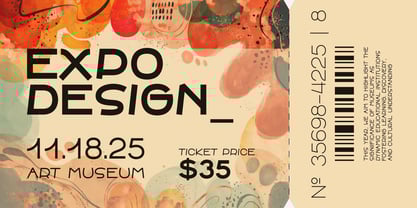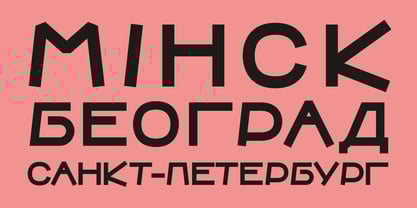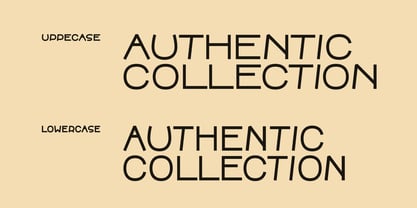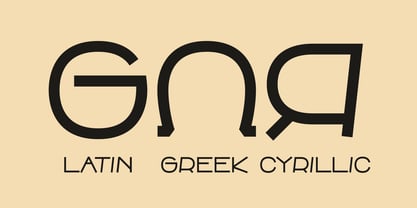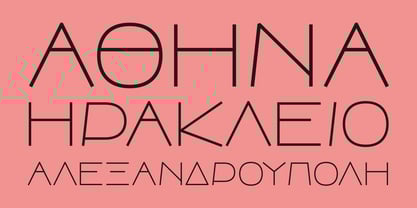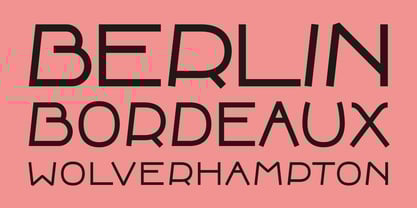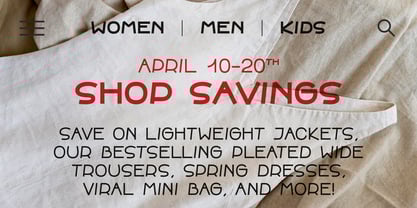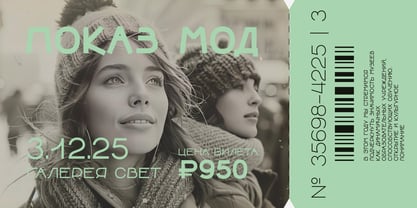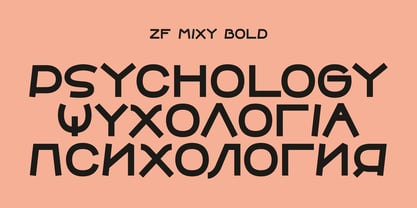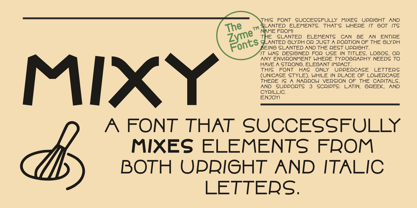
ZF Mixy Pro
The ZF Mixy Pro Font Family was designed by Babis Touglis and published by The Zyme. ZF Mixy Pro contains 3 styles and family package options. More about this family
ZF Mixy successfully mixes upright and slanted elements. That's where it got its name from!
The slanted elements can be an entire slanted glyph or just a portion of the glyph being slanted and the rest upright.
It was designed for use in titles, logos, or any environment where typography needs to have a strong, characterstic impact.
This font has only uppercase letters (unicase style), while in place of lowercase there is a narrow version of the capitals, and supports 3 scripts: Latin, Greek, and Cyrillic.